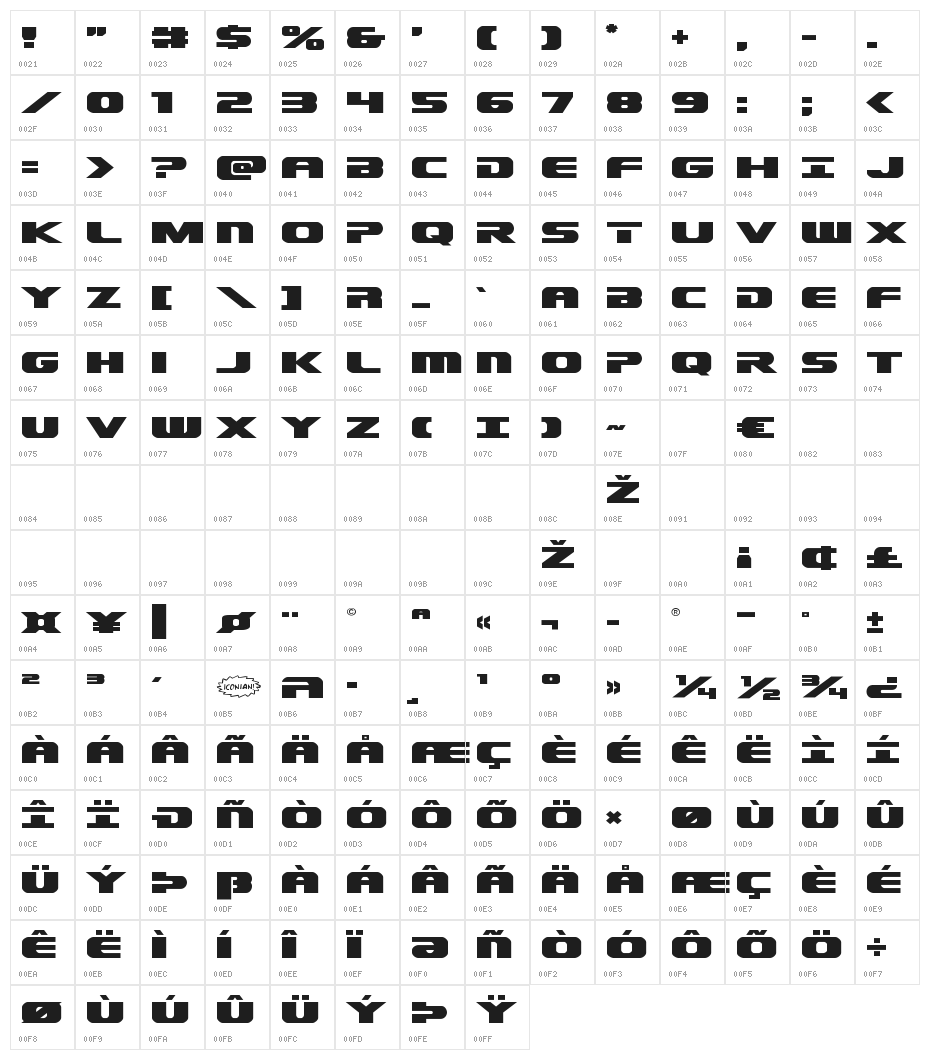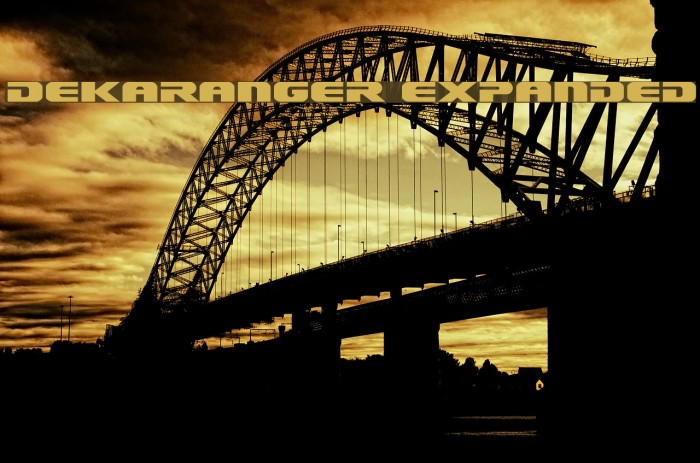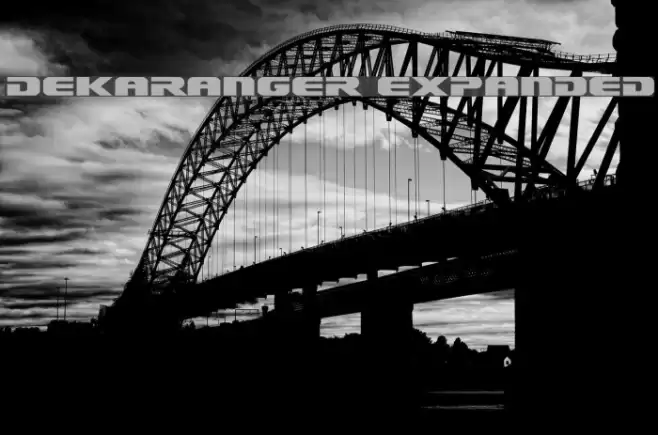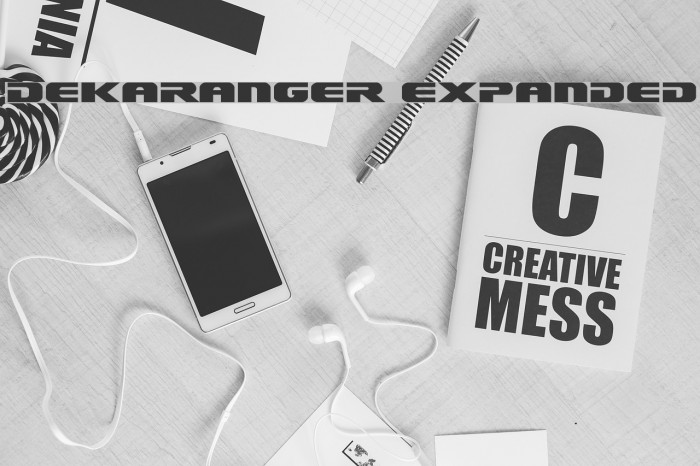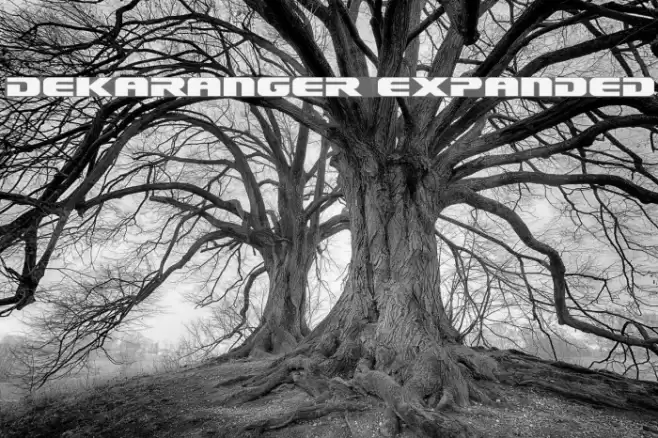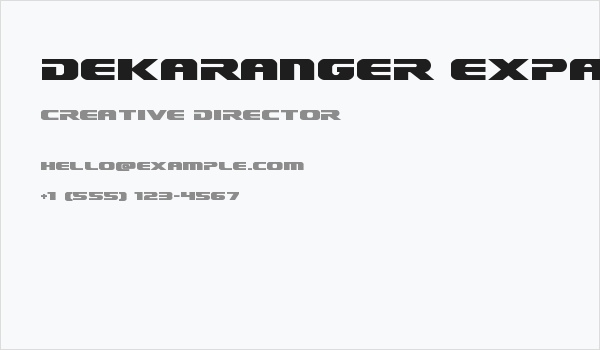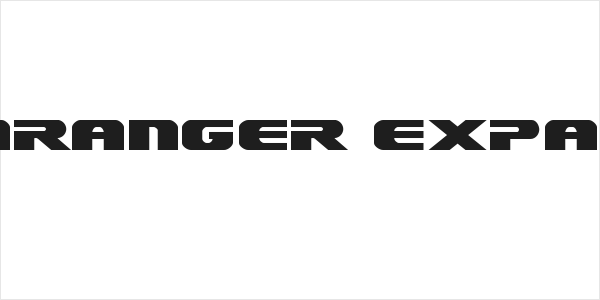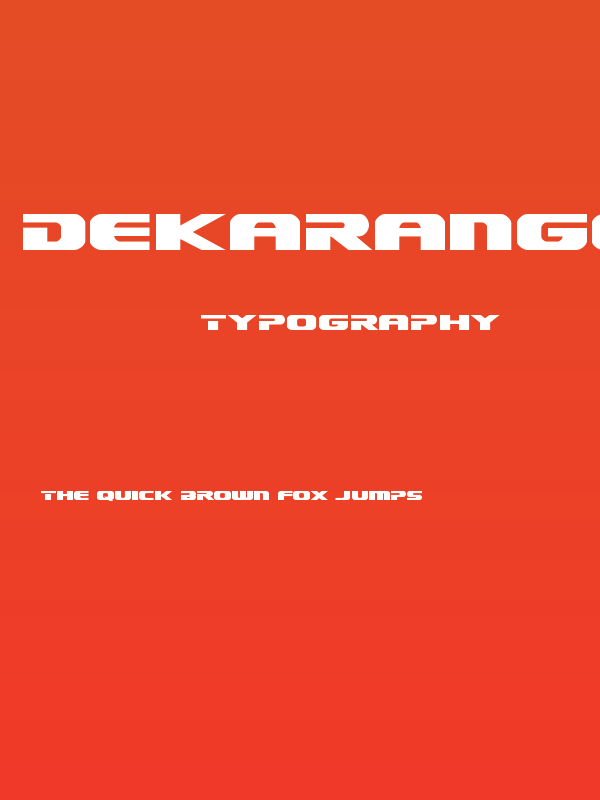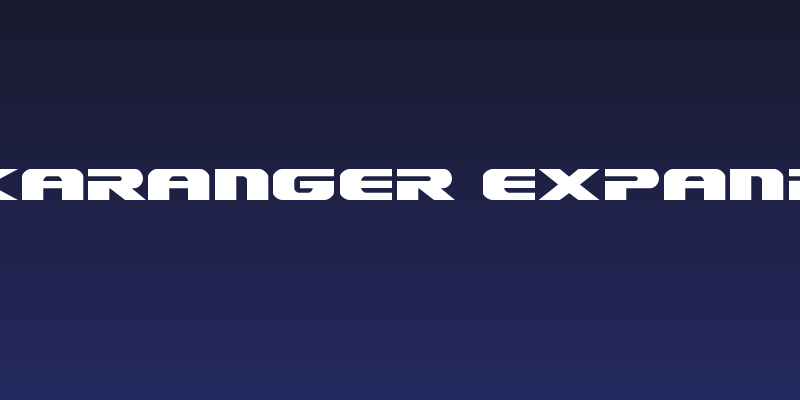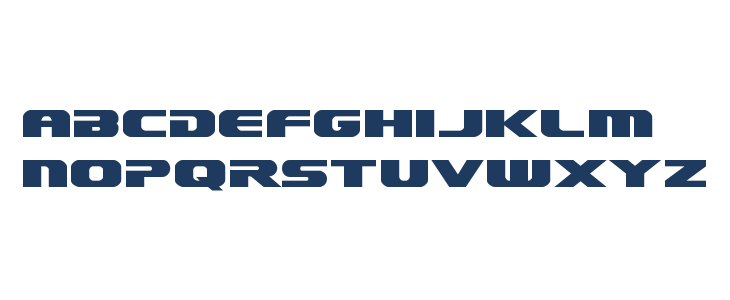
Dekaranger Expanded Font
Dekaranger Expanded Description
This font exhibits a bold and futuristic design, characterized by its strong geometric shapes and wide letterforms. The uppercase letters are particularly striking, with a blocky appearance that conveys a sense of strength and modernity. The numbers and special characters maintain this aesthetic, ensuring consistency across all glyphs. The font's expanded width gives it a commanding presence, making it ideal for attention-grabbing headlines or logos. Its clean lines and lack of serifs contribute to a sleek, contemporary look that is both versatile and impactful.